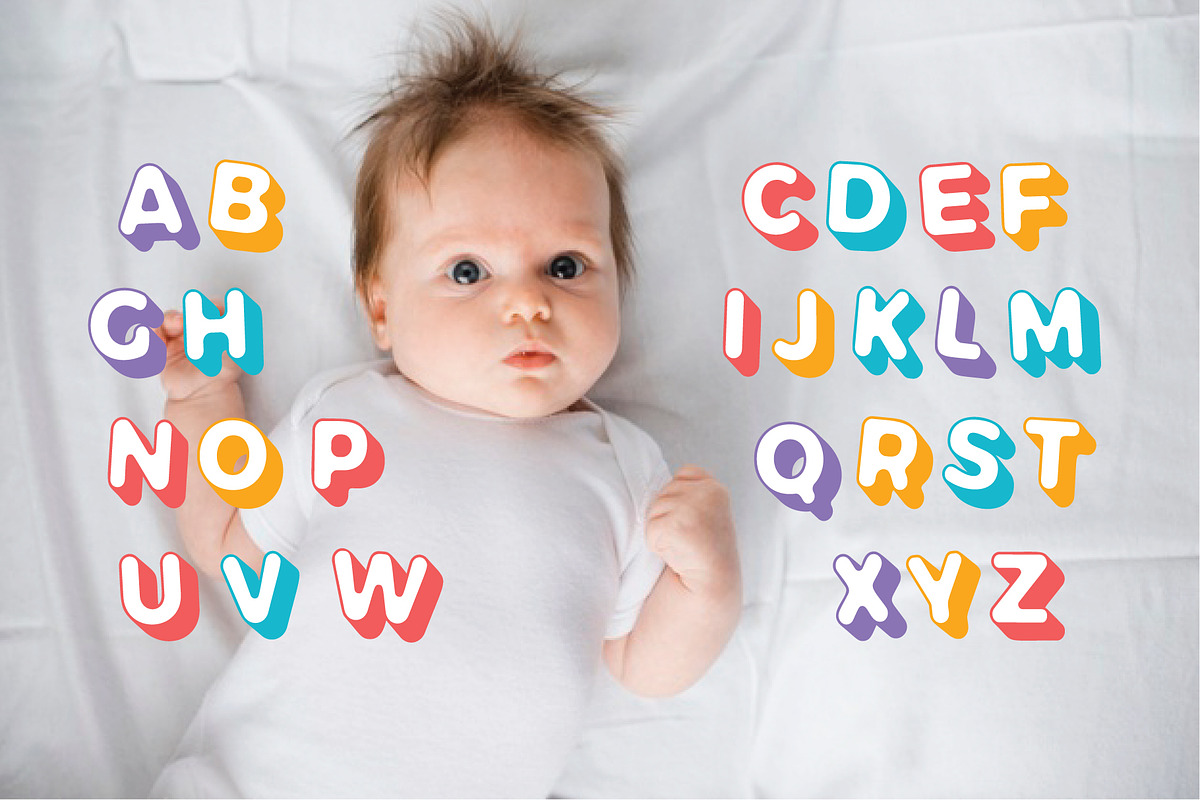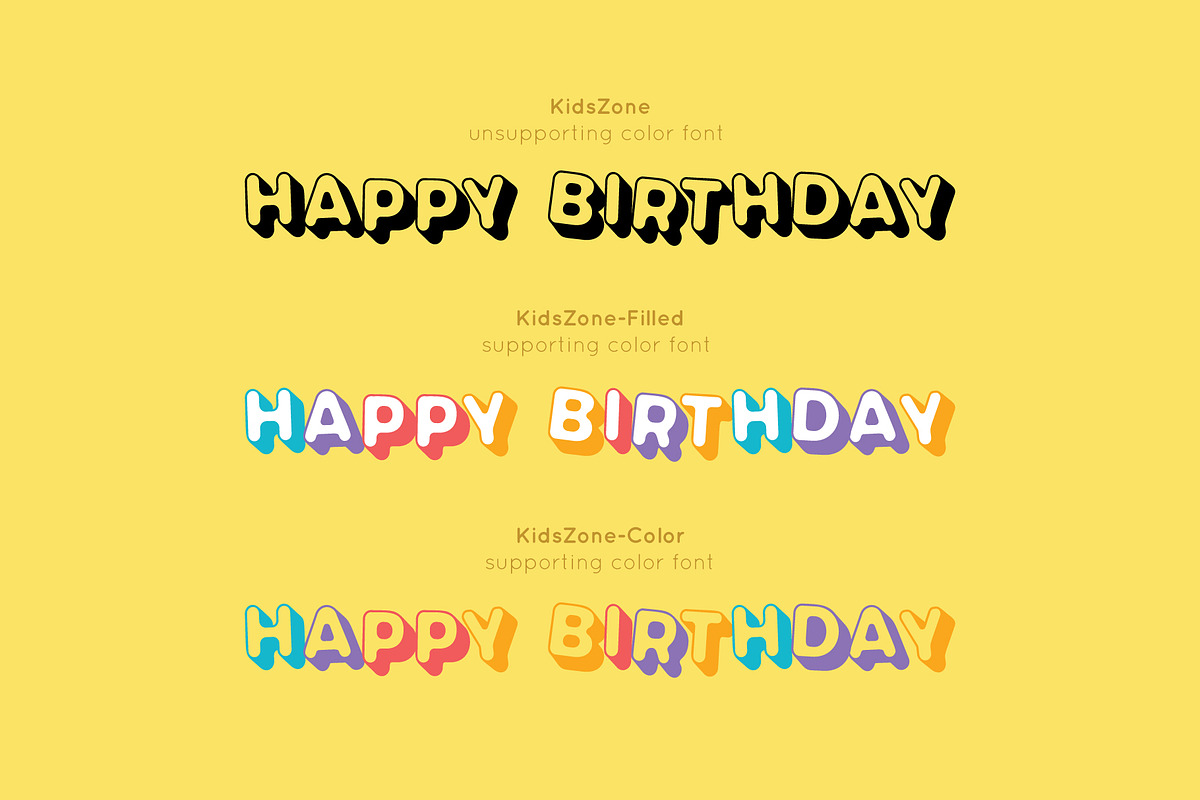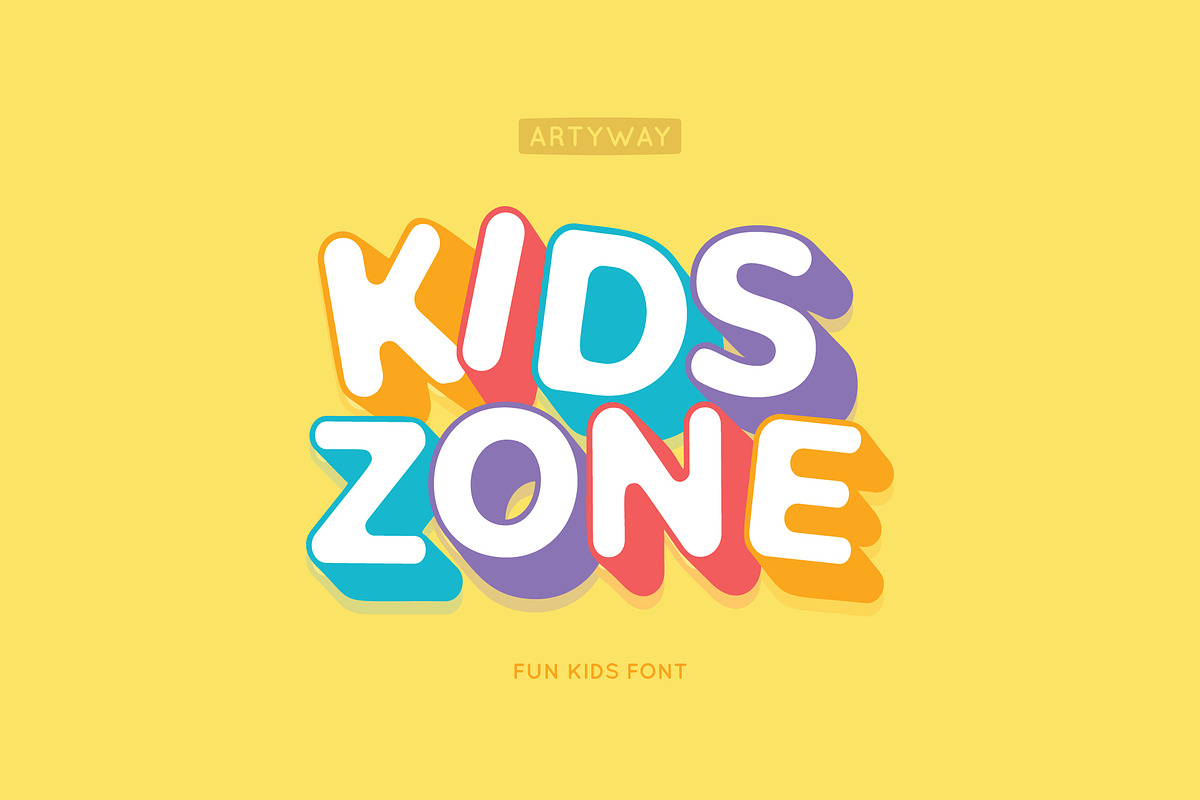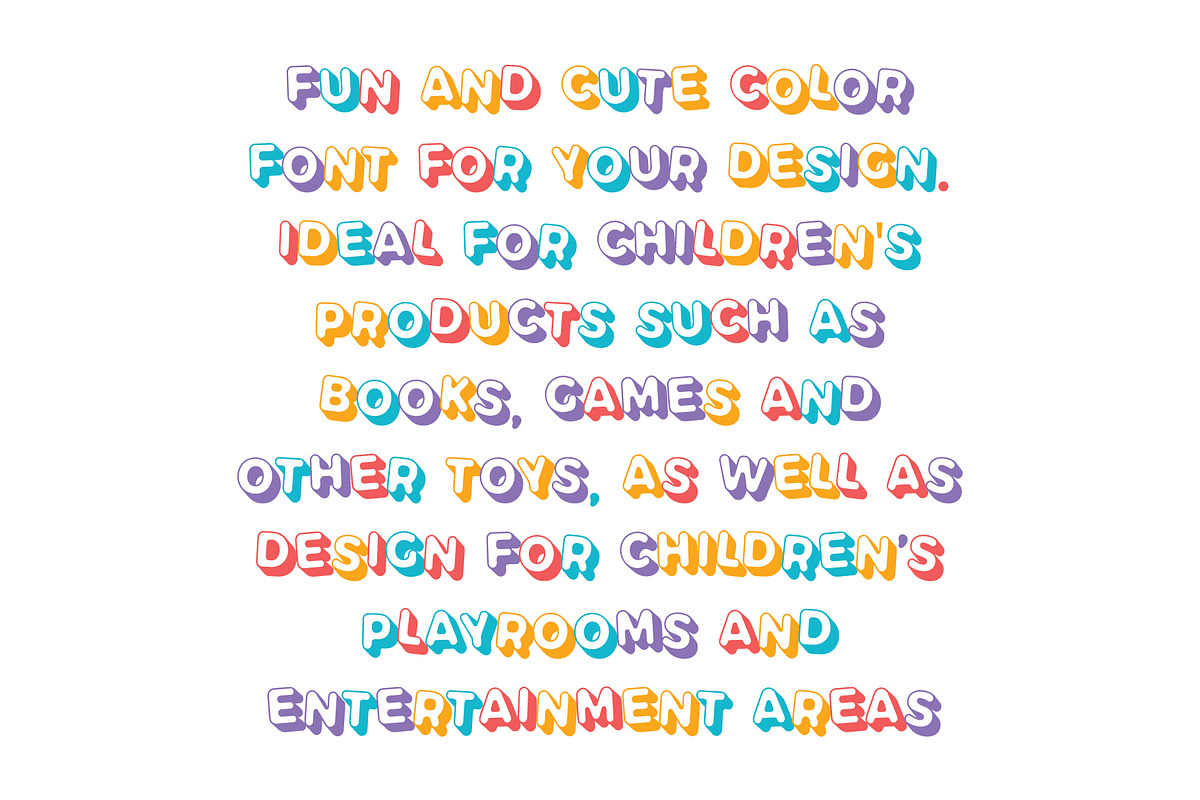
Kids Headline Font
Fun and cute color font for your design. Ideal for children's products such as books, games and other toys, as well as design for children's playrooms and entertainment areas.
KidsZone (transparent filling)
KidsZone-Color (transparent filling)
KidsZone-Filled (white filling)
Kids Headline Font by artyway fits naturally into Branding, posters, packaging, typography.